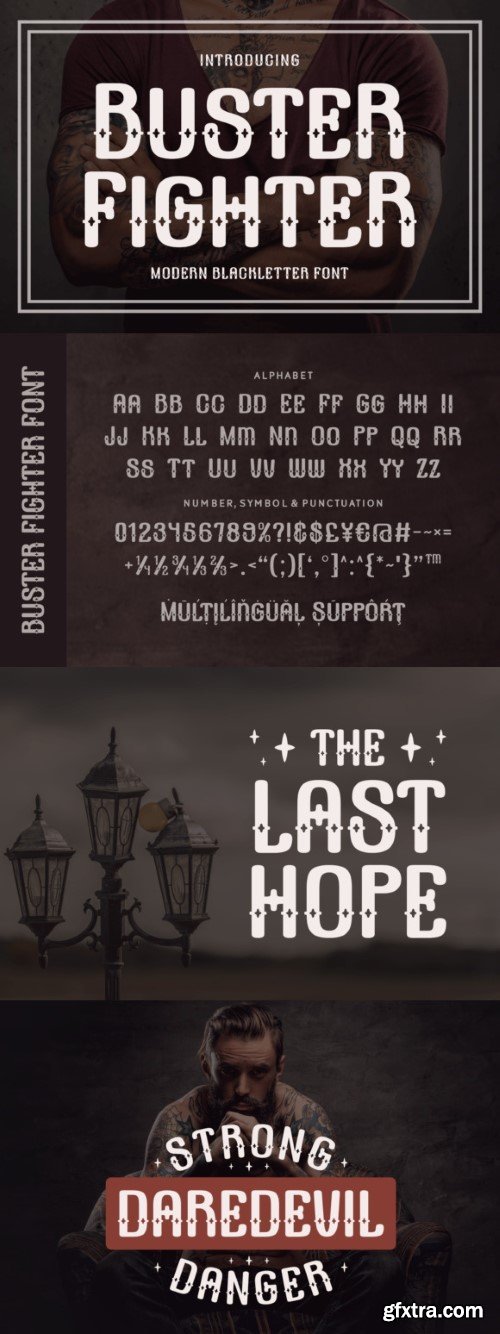
Buster Fighter Font
Buster Fighter is a modern blackletter font that incorporates small star-shaped details within its bold, Gothic-inspired letterforms. This unique combination of traditional blackletter elements and whimsical star accents gives the font a dynamic and playful edge while maintaining its powerful, dramatic presence. Buster Fighter is versatile enough to be used in a variety of settings, from edgy and rebellious themes to more lighthearted, fun designs.